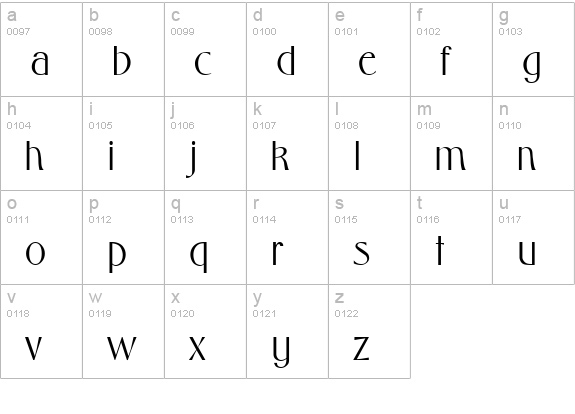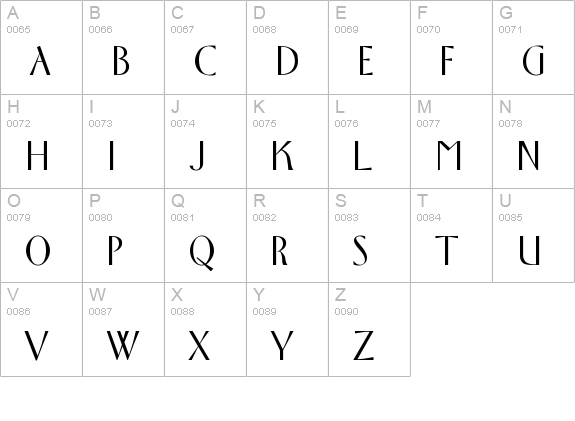
NewRix Fancy Font Details
Introducing NewRix Fancy font, a stunning typeface that exudes sophistication and elegance. With its intricate details and stylish flair, this font is perfect for adding a touch of luxury to your designs. The NewRix Fancy font brings a sense of class and refinement to any project, whether it be invitations, logos, or branding materials. Best of all, this exquisite font is available for free download at FontsMarket.com. Embrace the beauty and versatility of NewRix Fancy font and elevate your designs to new heights. Incorporate this font into your work and watch as it transforms your creations into works of art. Download NewRix Fancy font today and unleash your creativity with this exceptional typeface.